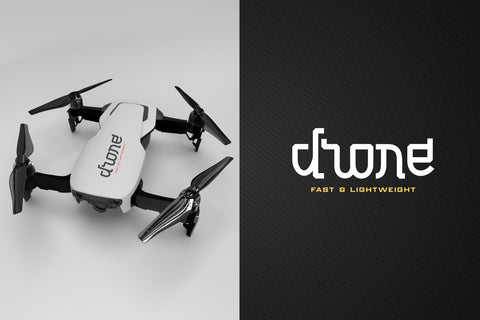
Bogie Bogie - Logo Typeface
Bogie Bogie - Logo Typeface A special font for the company logo and the logo of the project you are working on will certainly make it easier to create a logo. so for those of you who are still starting a business, this font will be very suitable for your identity and you will not bother anymore to create a logo.
Bogie Bogie is perfect for logo designs, electronic logos, drone logos, smartphone logos, computer brand logos, camera logos, and other logo logos.